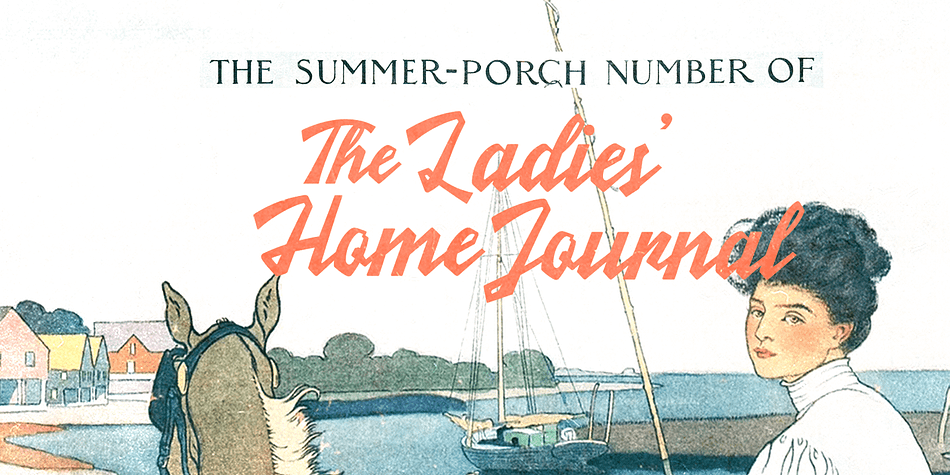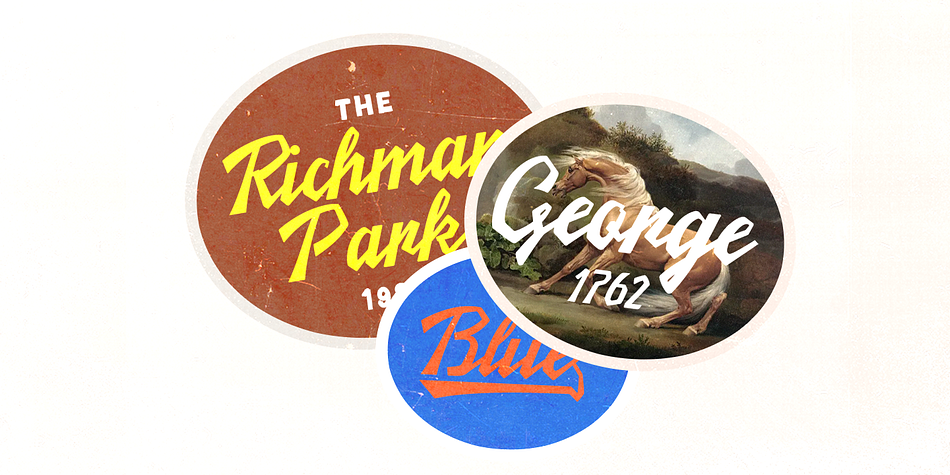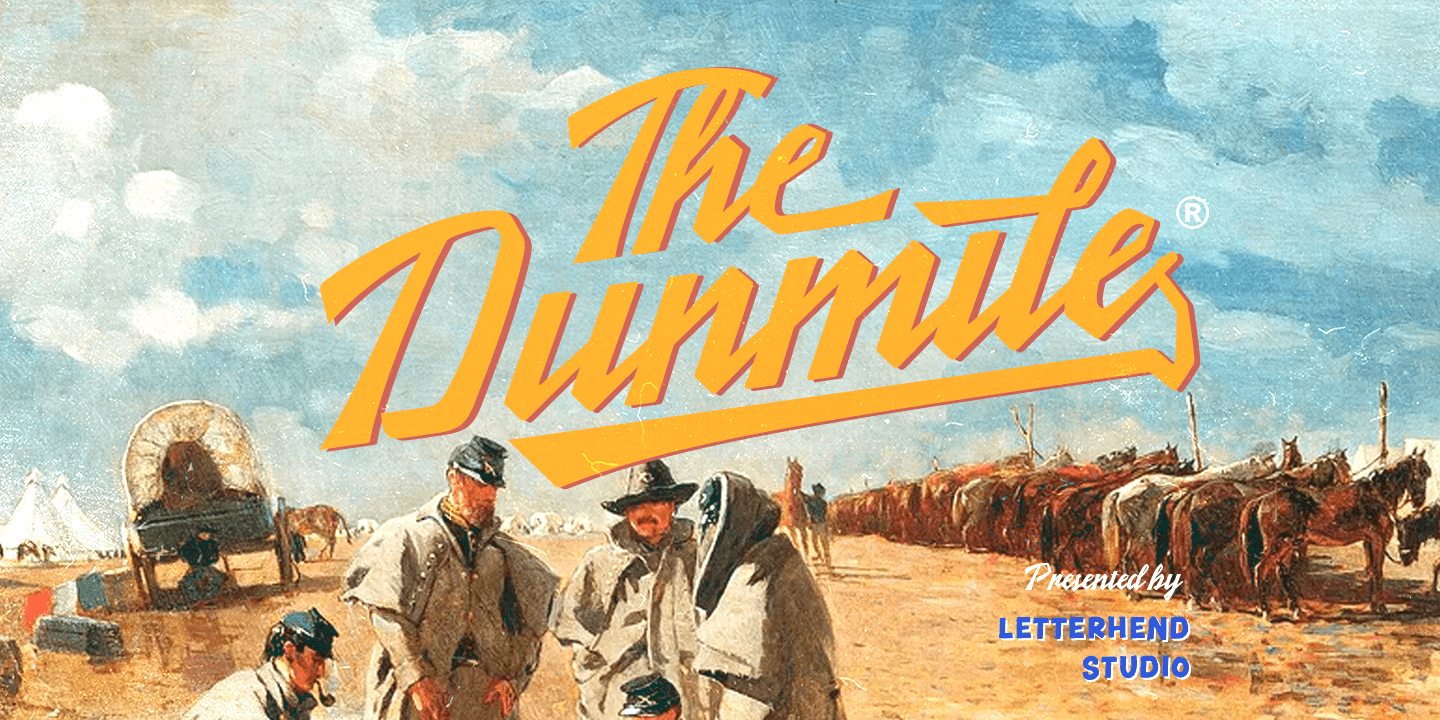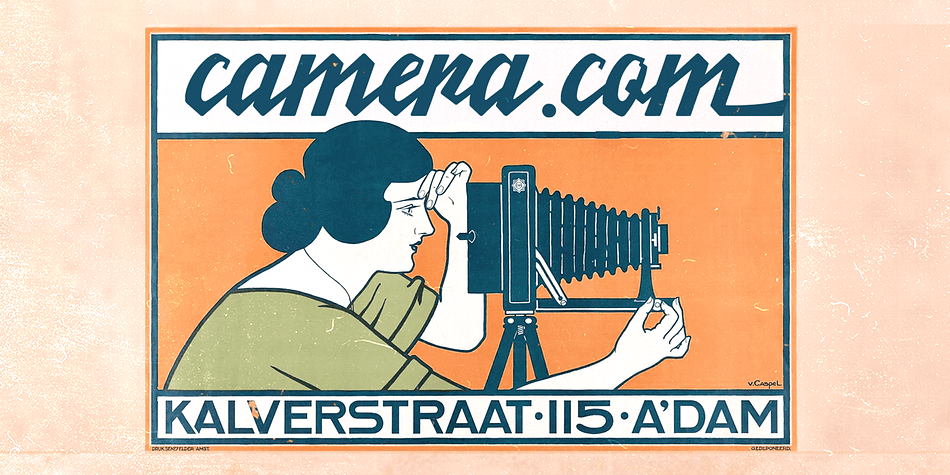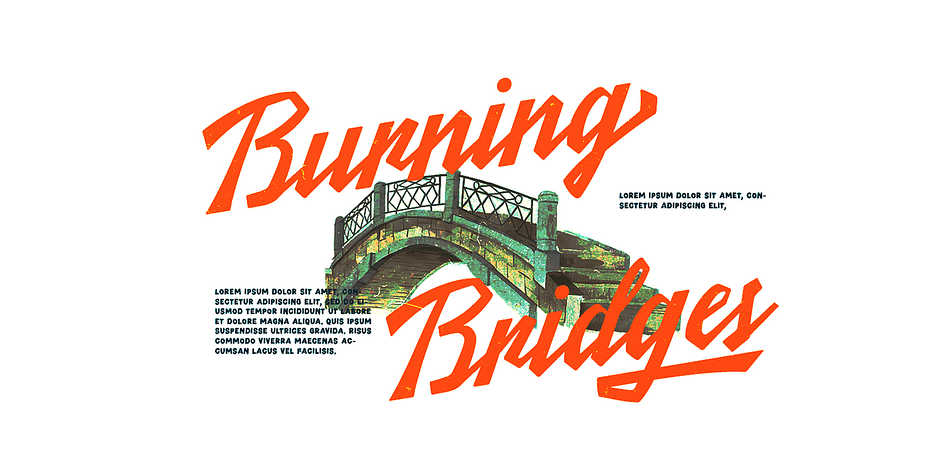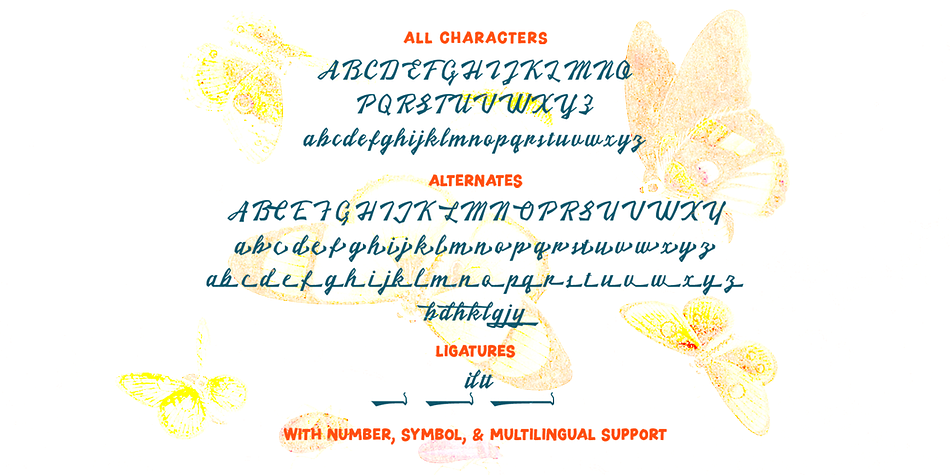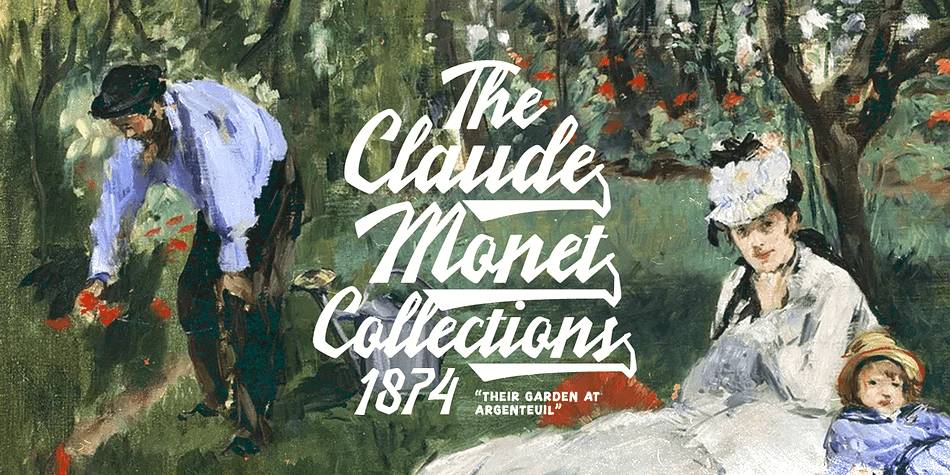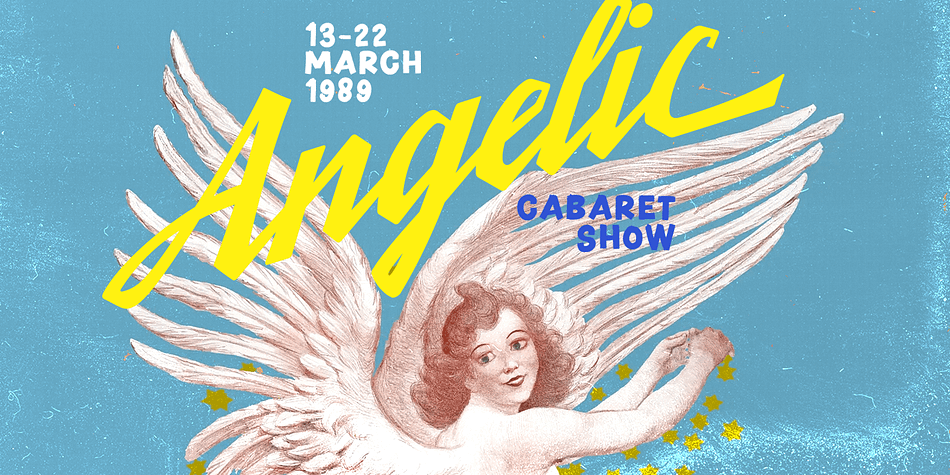
Designed by Hendry Juanda, The Dunmile is a brush script and script font family published by Letterhend Studio.
The Dunmile font is a modern script with a touch of vintage look and feel. This type of font perfectly made to be applied especially in logo, headline, signage and the other various formal forms such as invitations, labels, logos, magazines, books, greeting / wedding cards, packaging, fashion, make up, stationery, novels, labels or any type of advertising purpose.
- alternates / swashes and ligatures